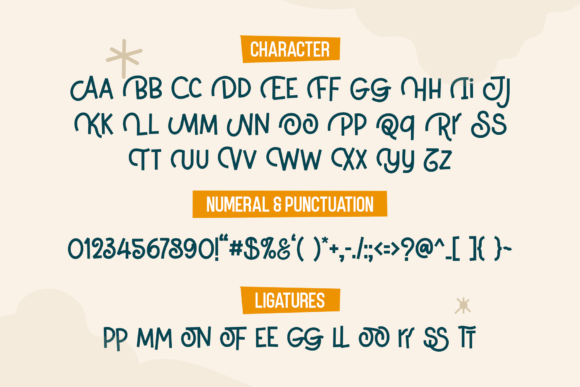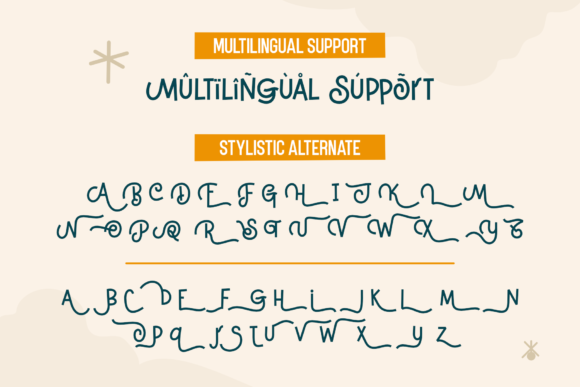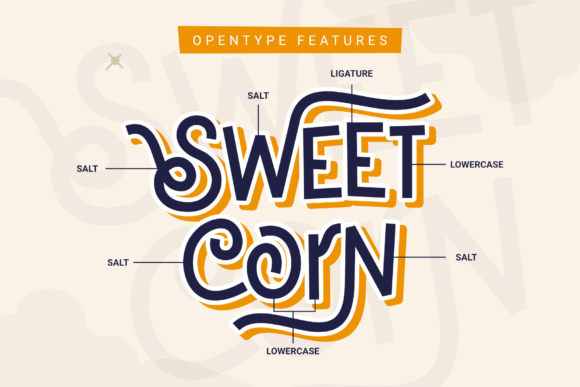
Introduction to Shibori Font
Shibori is a playful and distinct display font.
Its sweet and full of life style makes this font a wonderful choice for brightening up your designs This font is PUA encoded which means you can access all of the glyphs and swashes with ease.
Shibori Font offers exceptional quality and versatility, making it a valuable addition to your design toolkit. Whether you’re creating for personal projects or commercial use, Shibori Font delivers professional results.